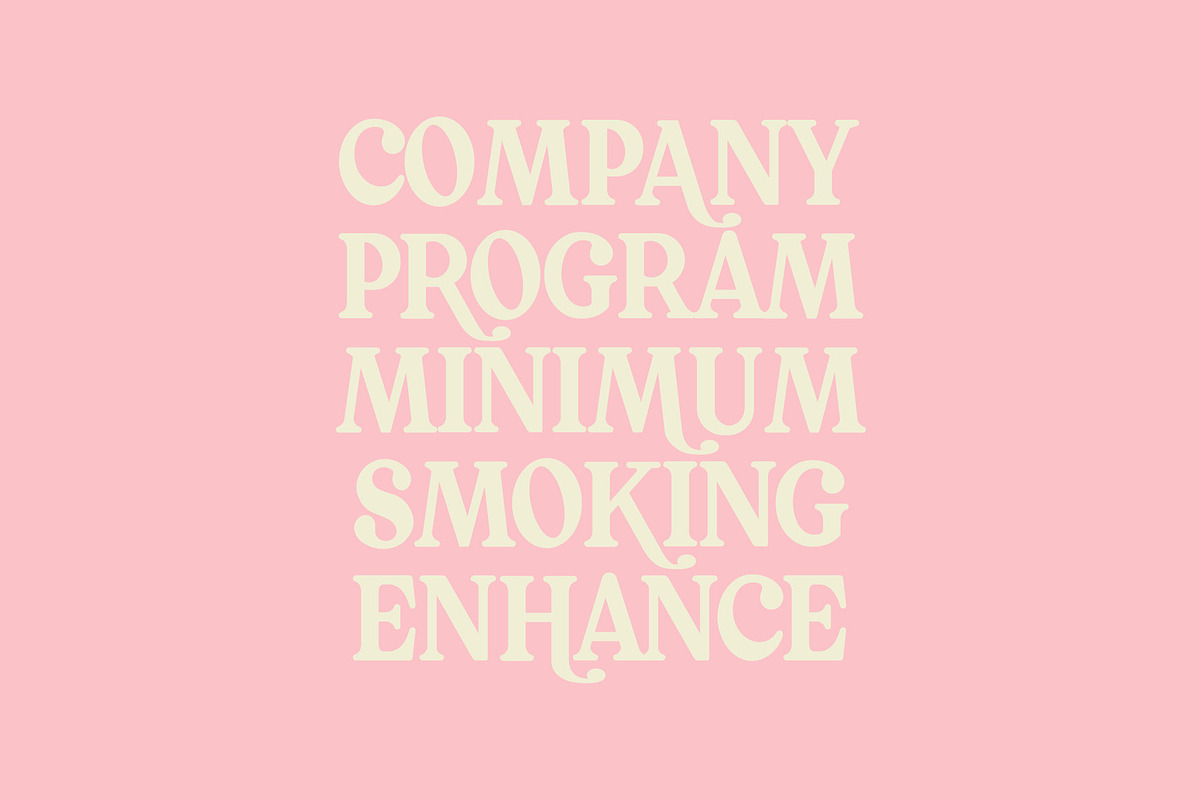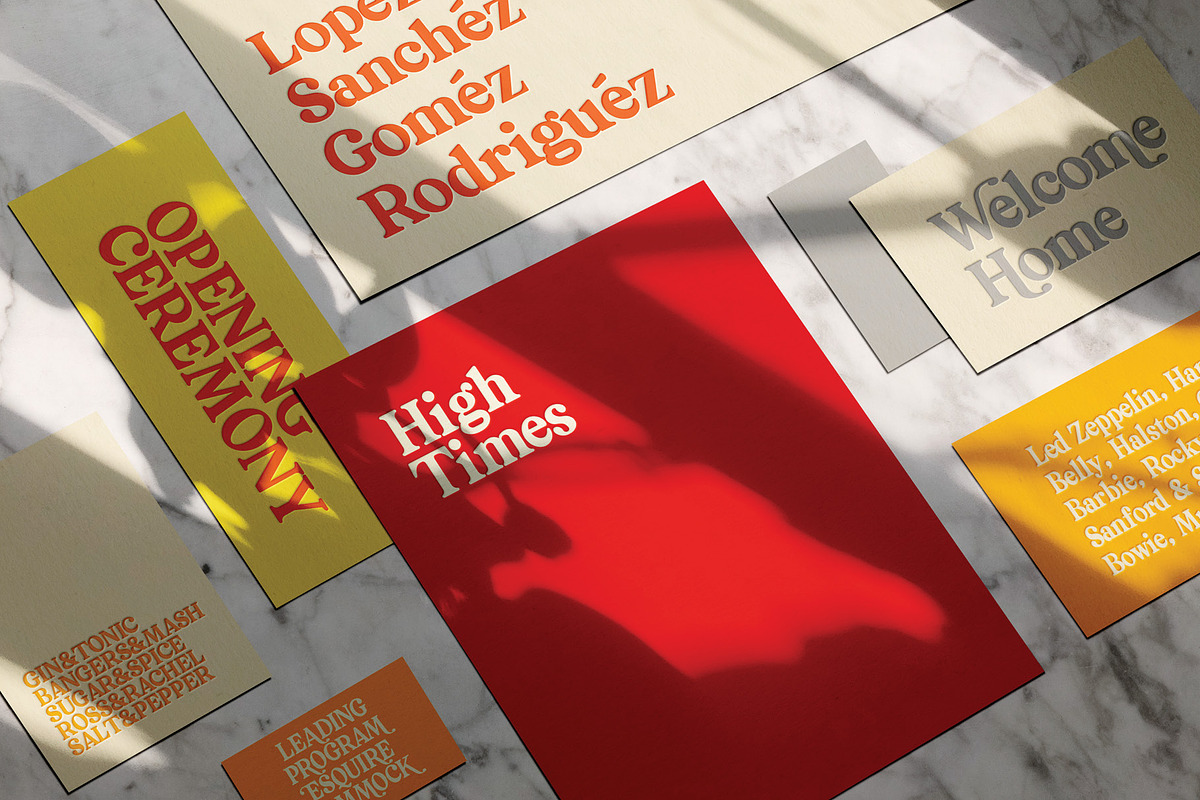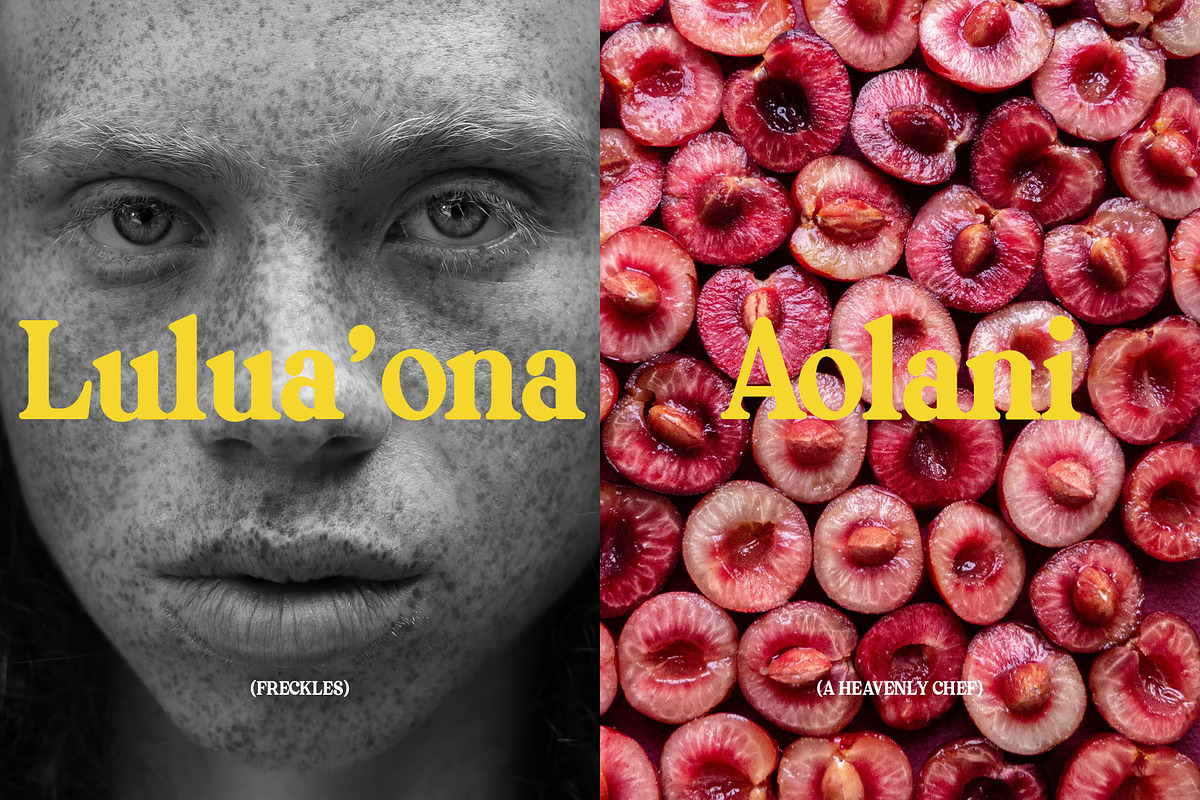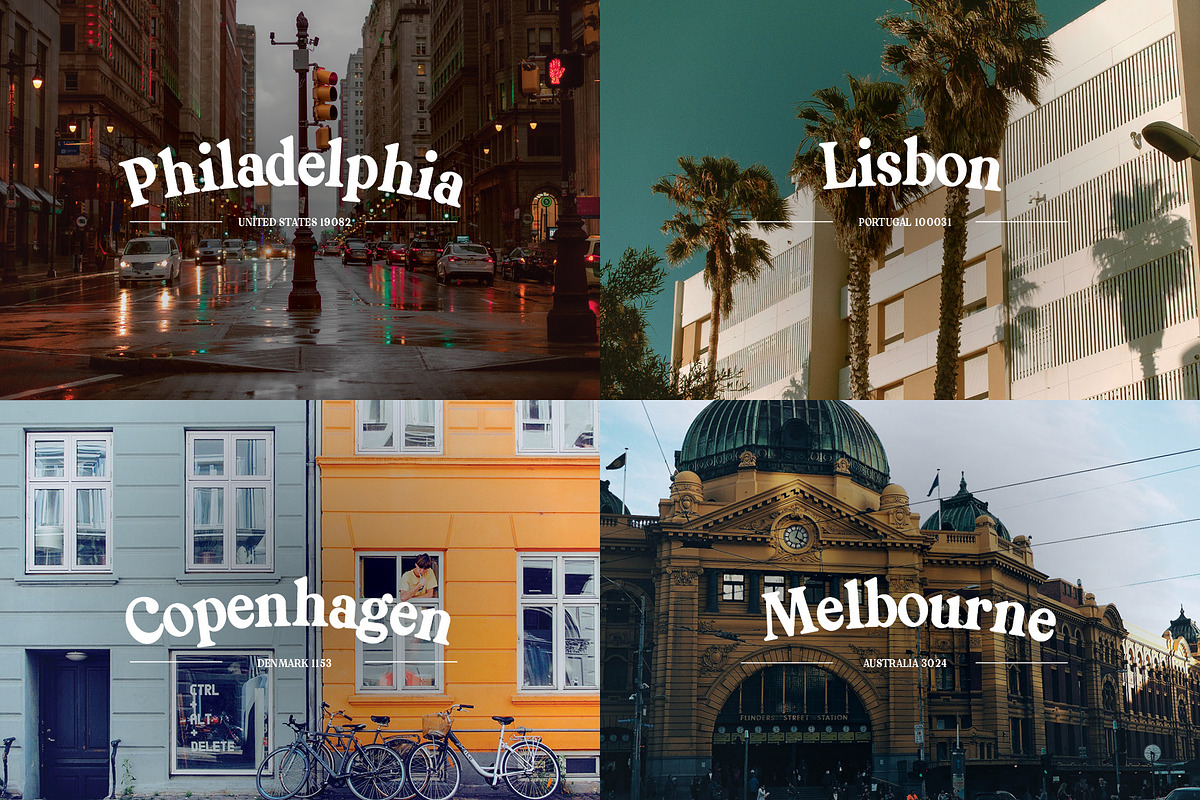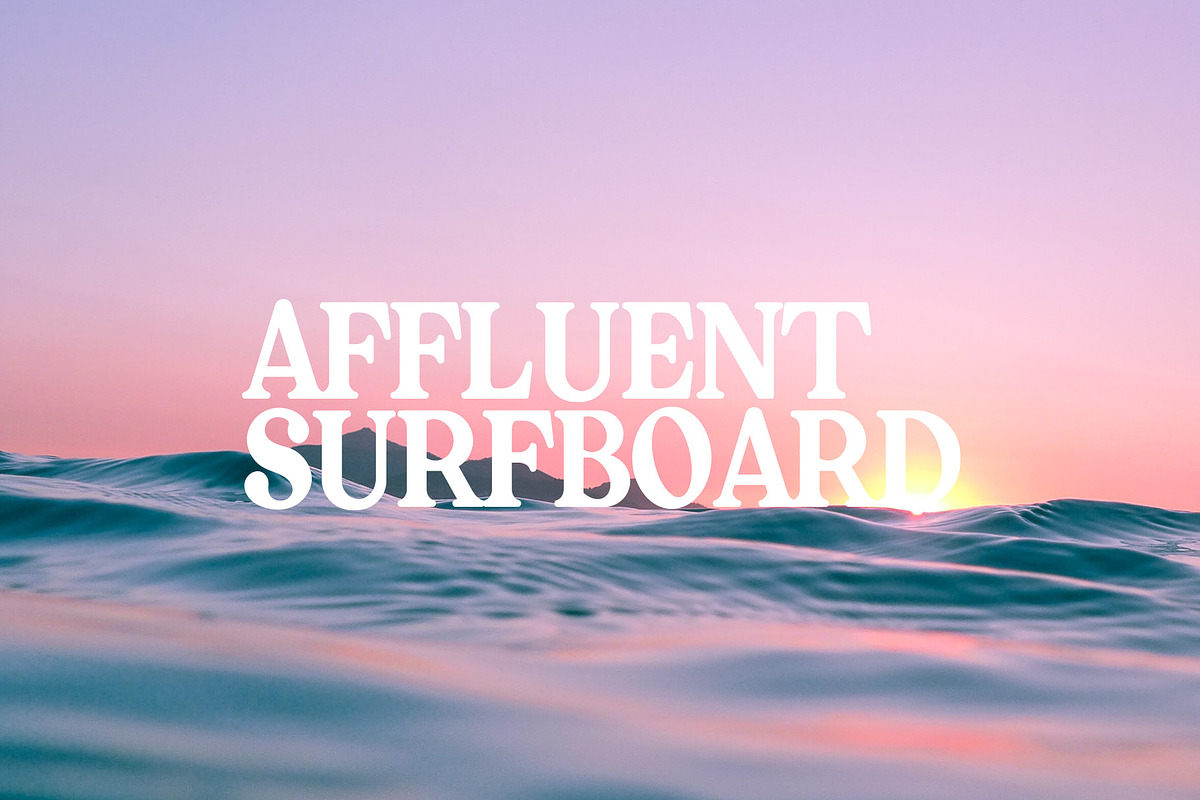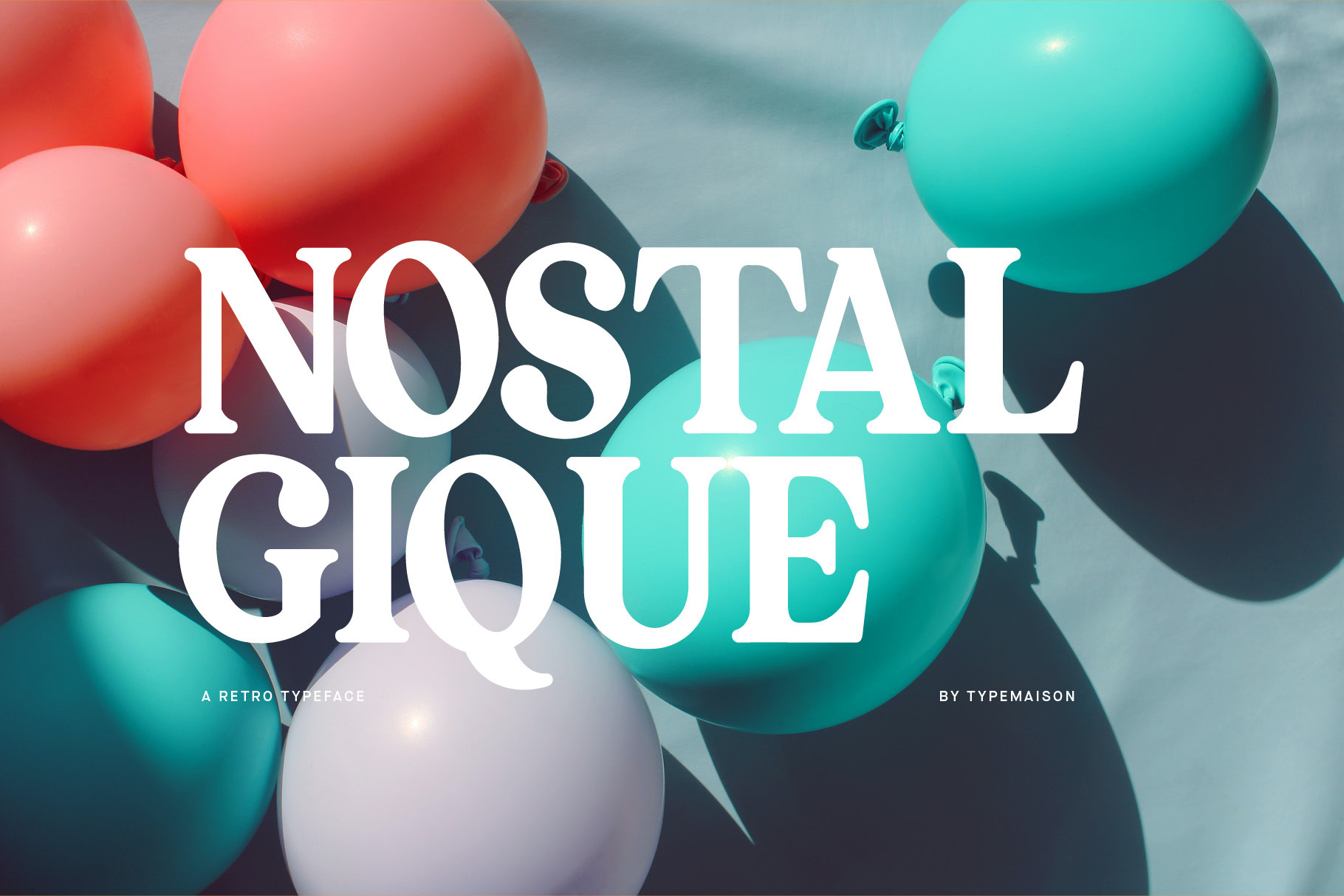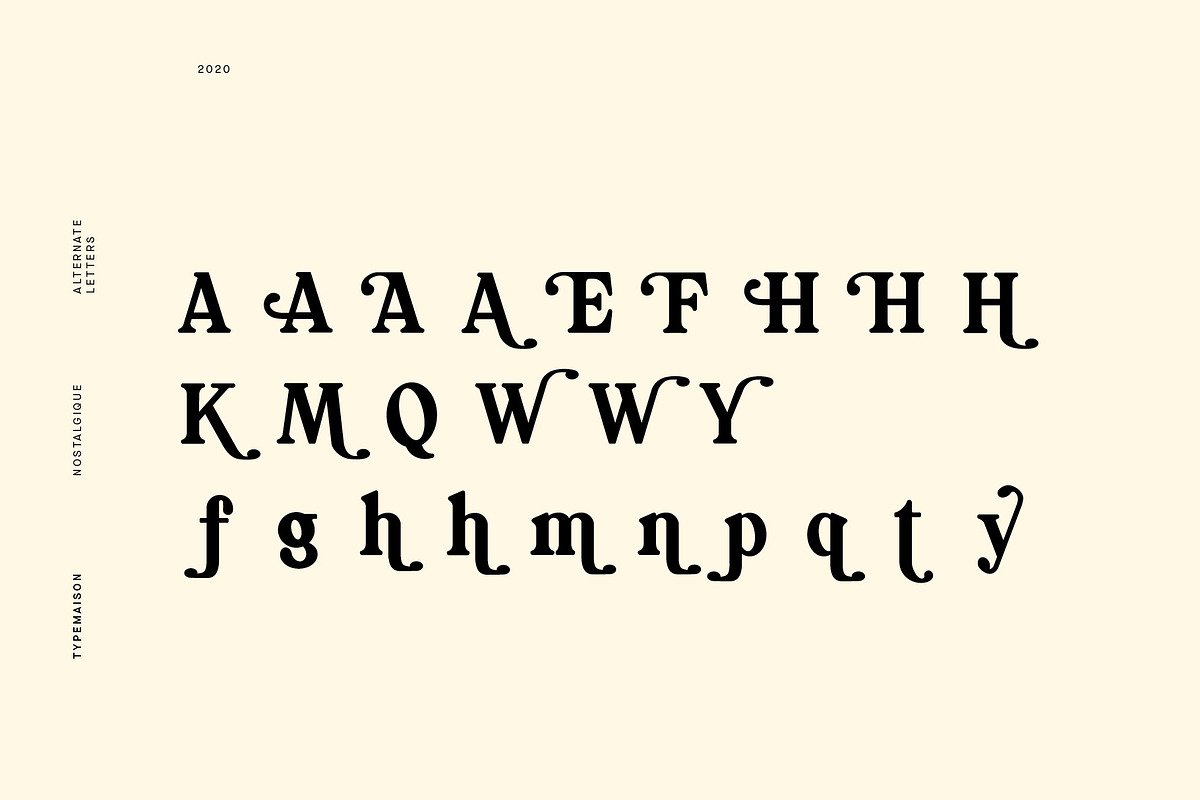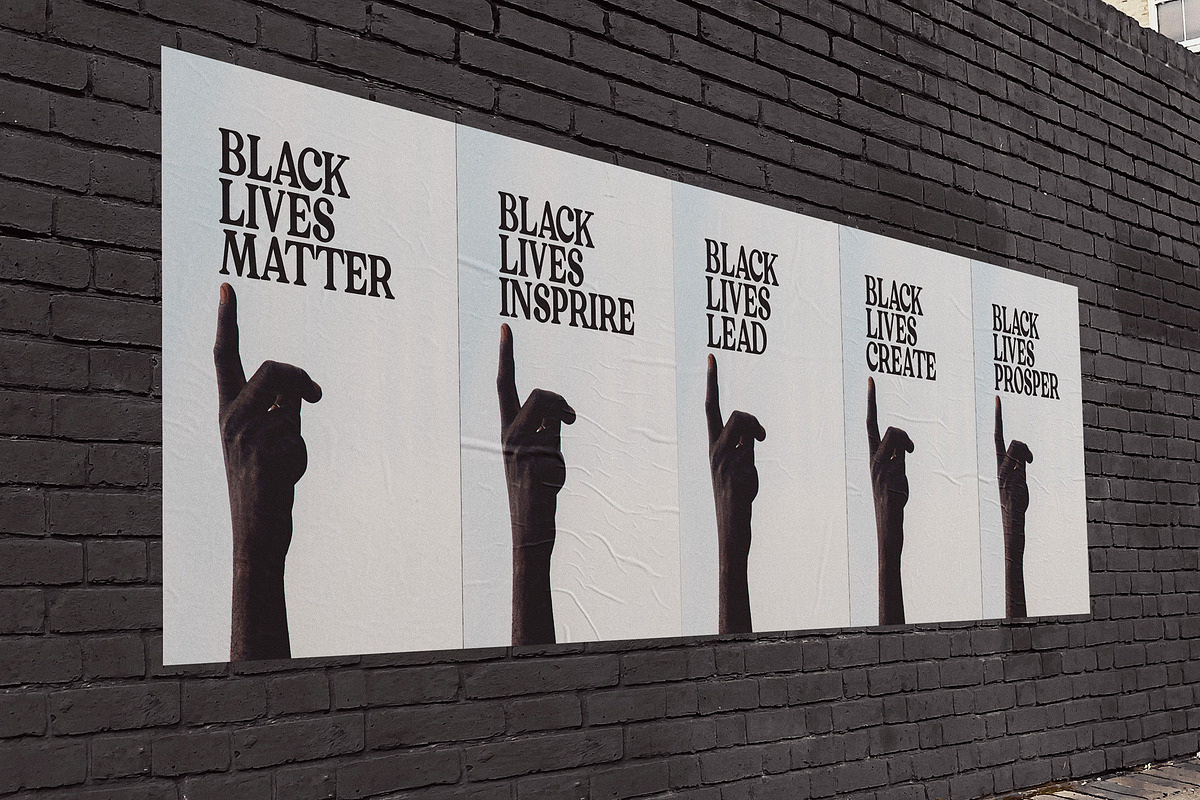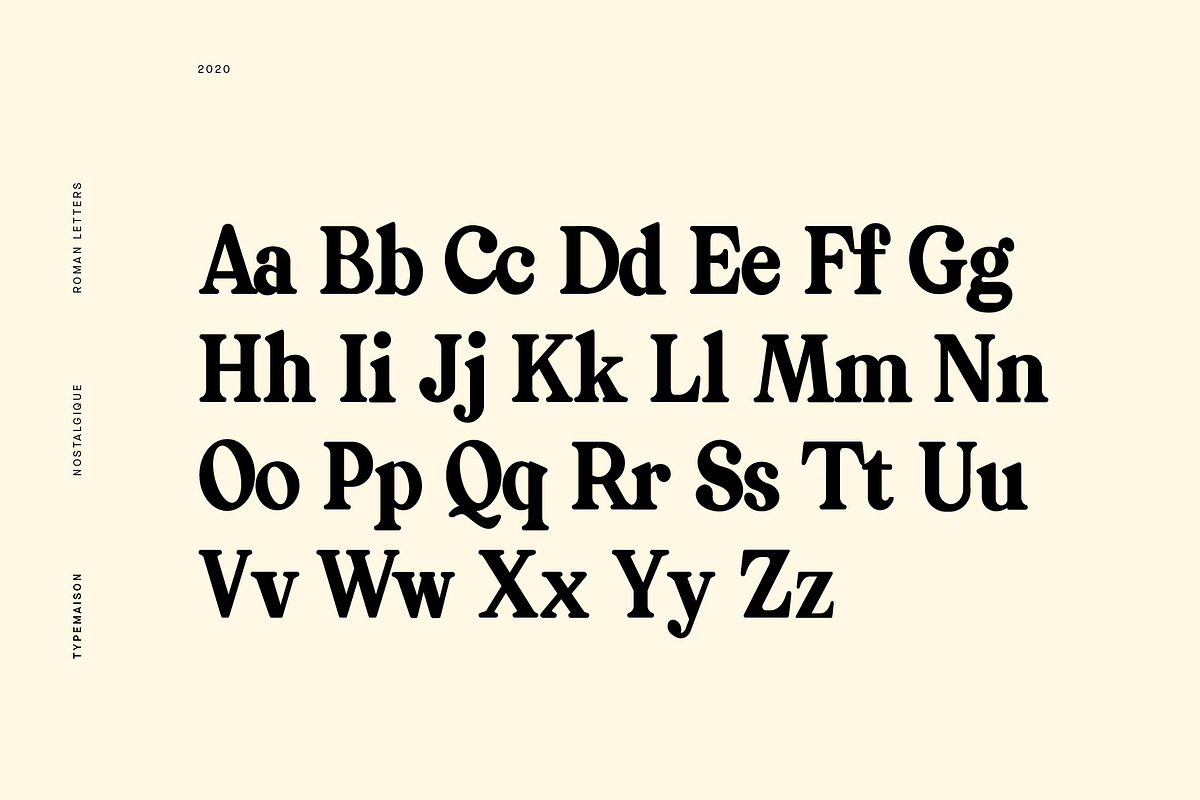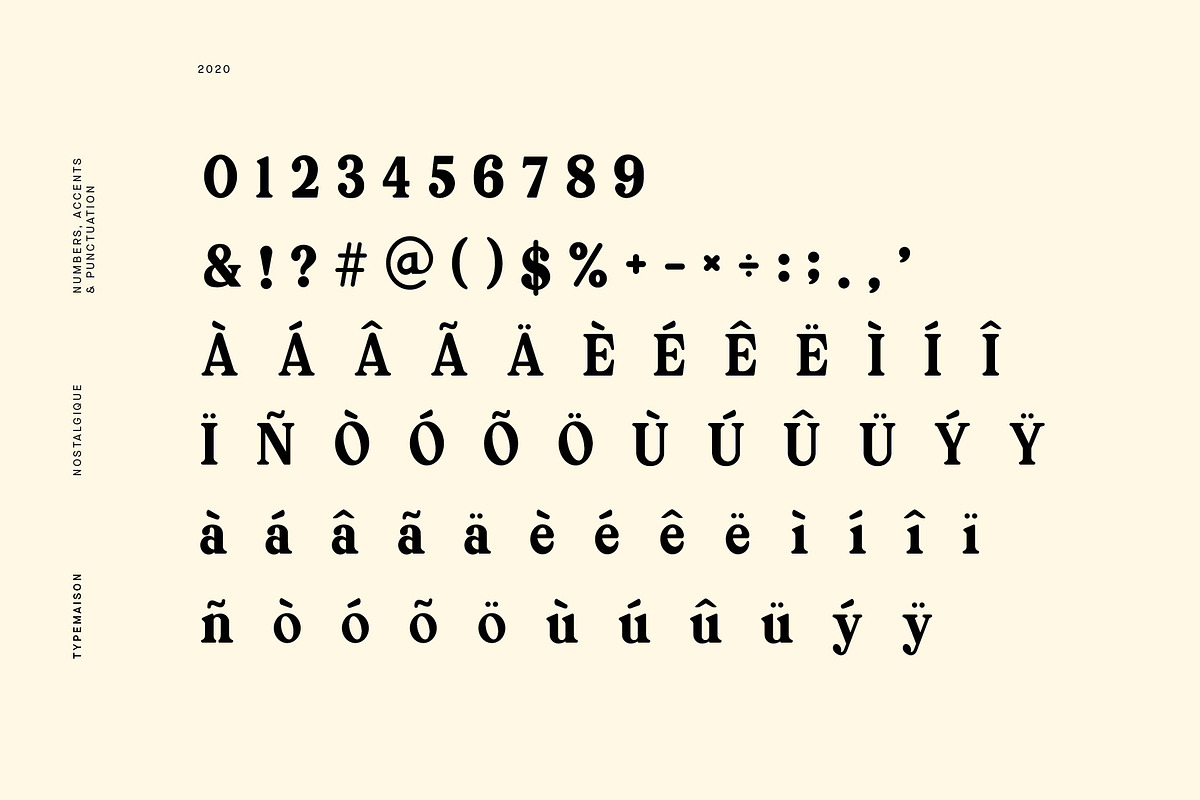
Nostalgique - Retro Inspired Font
A playful, condensed typeface packed with personality. This typeface meets at the corner of familiar and new. With rounded edges and a nostalgic, think weight, this font is perfect for a wide variety of projects. Designed with Alternate Letters and Ligatures to give you bespoke options.